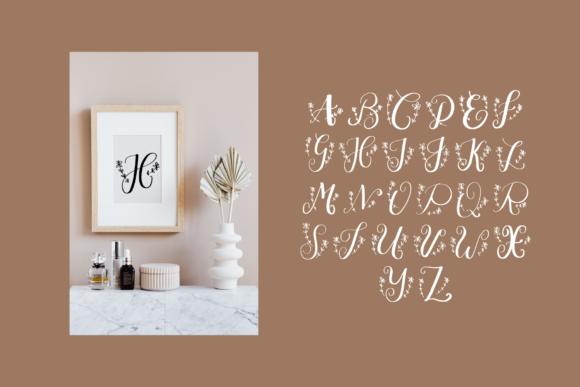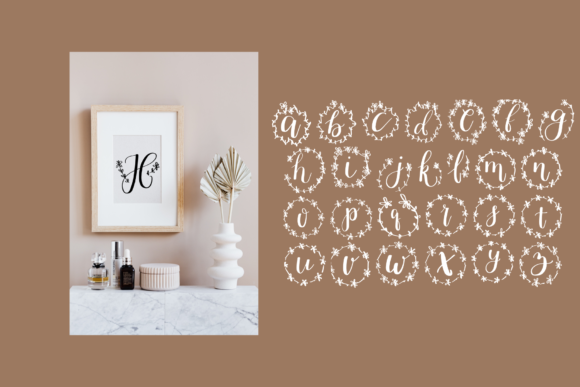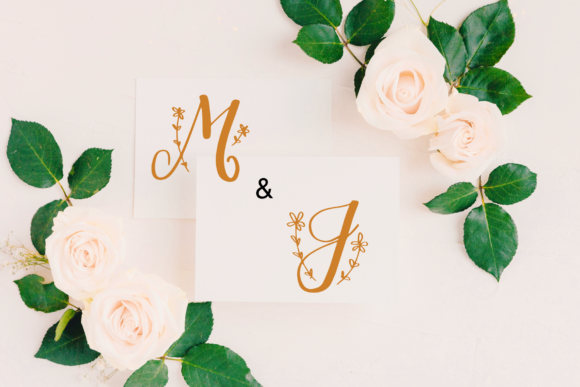
Introduction to My Floral Font
Have you ever found yourself lost in the creative process, searching for the perfect font to elevate your project from ordinary to extraordinary? That’s exactly where I was when I stumbled upon the enchanting My Floral Font. As I gazed at its delicate, handwritten script, I knew I had to share this treasure with fellow designers and creatives.
As a valuable resource in the design community, My Floral Font offers a unique blend of classic calligraphy and modern flair. Its high-quality design makes it an ideal choice for various creative projects, from wedding invitations to branding materials. With its transparent background, this font seamlessly integrates into any layout, ensuring your message shines through.
Key Features of My Floral Font
- High-quality vector graphics for a crisp and clear design
- Transparent background for seamless integration with any creative project
- Includes 20 unique floral designs and 10 decorative elements
Honest Review: My Floral Font
As a designer, I’m always on the lookout for high-quality design resources to elevate my creative projects. My Floral Font is a beautiful, free download that I was excited to try out.
- Delicate, intricate designs that add a touch of elegance to any project
- High-quality vectors that are perfect for use in creative projects
- Transparent background option for easy use on any background
My Floral Font is perfect for designers who want to add a touch of whimsy and sophistication to their projects. The font is versatile and can be used in a variety of contexts, from wedding invitations to branding materials.
- Only available in a limited range of font styles and sizes
- No customization options available for the font
Overall, I’m impressed with My Floral Font and would definitely recommend it to designers who are looking for a high-quality, free design resource. While it has some limitations, the font is a great addition to any design library.
My Floral Font is a high-quality design resource ideal for creative projects that require a touch of elegance and sophistication. This free download is perfect for designers looking for a unique and eye-catching font to add to their designs.
Tips for Getting the Most Out of My Floral Font
To get the most out of My Floral Font, use it in combination with other design elements, such as images and graphics, to create a visually appealing design. You can also experiment with different font sizes, colors, and styles to create a unique and eye-catching design.
Common Use Cases for My Floral Font
My Floral Font is ideal for use in wedding invitations, birthday cards, and other creative projects that require a touch of elegance and sophistication. You can also use the font in business presentations, marketing materials, and other professional designs.